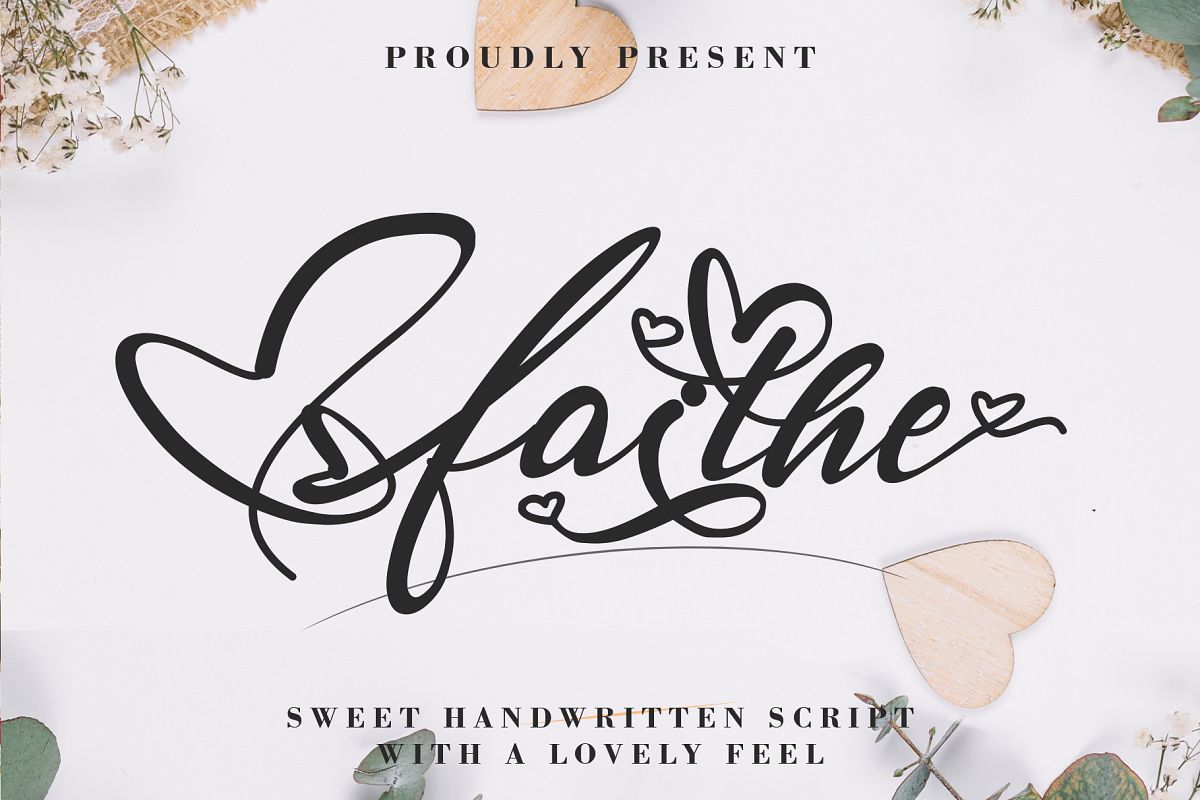
Faithe is an incredibly sweet and delicious handwritten
script with a lovely feel. Whether it’s Valentine’s Day or Christmas, this the
ultimate font for turning any romantic crafts idea into a stunning piece of
art!
Swash , Titling, and Ligature
Support multilingual; ä ö ü Ä Ö Ü
ß ¿ ¡